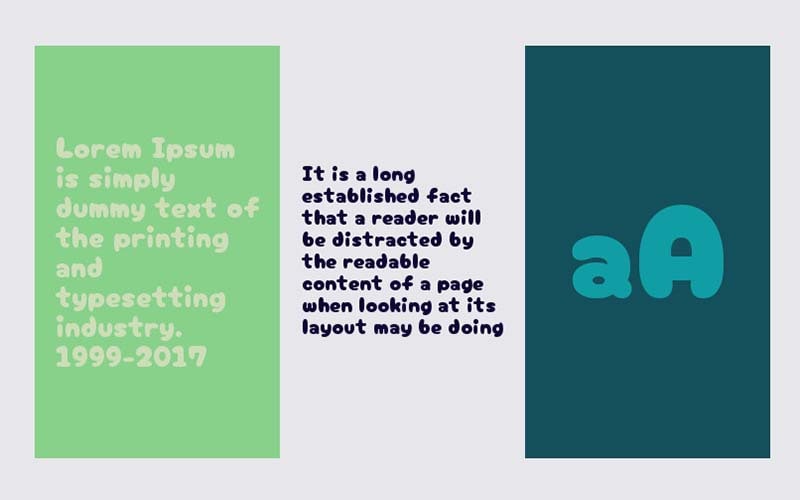
Cherrybomb font is a bold various, cartoon Display typeface with a friendly and cute look. Cherry Bomb Regular is the perfect font for all your fun designs.
Satsuyako took charge to design it for the first time based on BomHaus. The author works at the company satsuyako, and uploaded it by Donnelly on December 15, 2019, featured on display.
This Bold font has only one Regular style available such as “Chery Bomb Regular”. It consists of 41 glyphs and 74 characters from the Unicode range such as 73 Basic Latin, 1 Latin-1 Supplement.
This unique font has come with 82 characters set like 26 uppercase letters, 26 lowercase letters, and 10 numbers. And there are some special symbols, including punctuation marks.
Cherrybomb Font